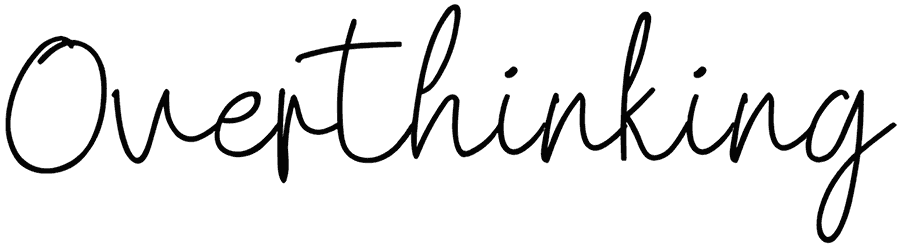
Overthinking Font
Overthinking is an elegant font that has a charismatic personality. This script font has a stylish form and catches your eye at first glimpse. Overthinking can be helpful in several situations, such as invitation cards, business cards, and magazines, while it supports a mixture of lowercase and uppercase letters.
This handwritten font’s letters comprise thin lines with sharp edges, making this font memorable. So take it to make your audience stare at your content.